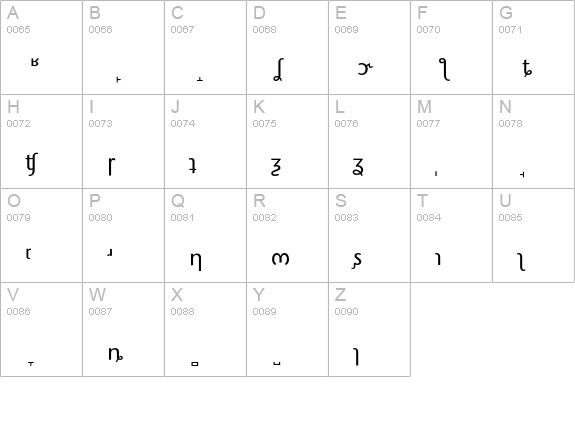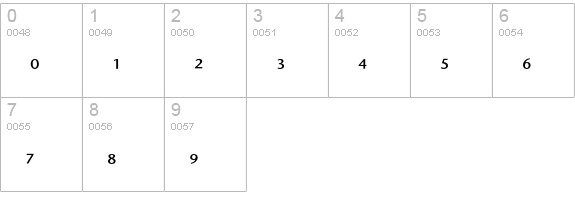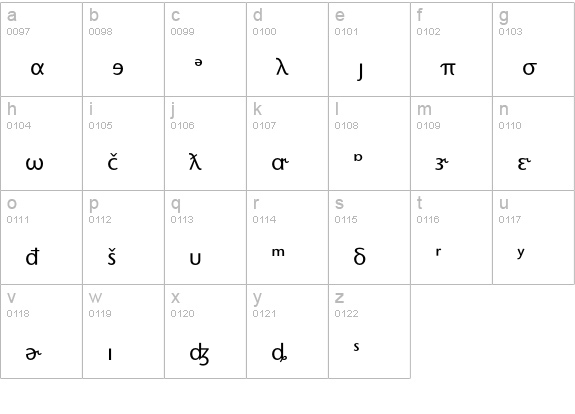
StoneSansPhonEF-MedPlus Font Details
StoneSansPhonEF-MedPlus is a versatile and modern font that exudes elegance and sophistication. Its clean lines and balanced proportions make it perfect for a wide range of design projects, from branding to editorial design. This font strikes the perfect balance between professionalism and creativity, making it a great choice for both corporate and artistic purposes. What sets StoneSansPhonEF-MedPlus apart is its unique ability to convey a sense of authority and creativity simultaneously. The medium weight of the font adds a touch of boldness without being too overpowering, making it ideal for headlines, subheadings, and body text alike. The best part about StoneSansPhonEF-MedPlus is that it is completely free to download at FontsMarket.com. This means that you can add this exceptional font to your design toolkit without having to worry about any costs. Whether you are a seasoned designer or just starting out, StoneSansPhonEF-MedPlus is a must-have font that will elevate your design projects to the next level.